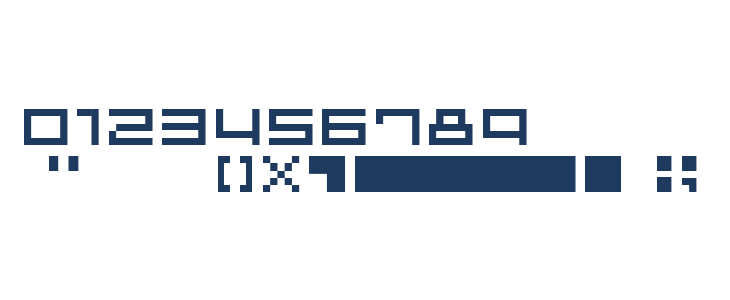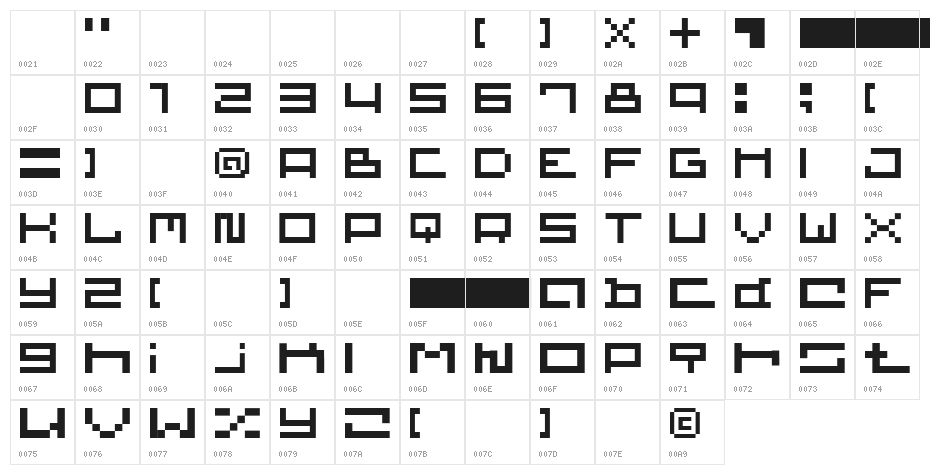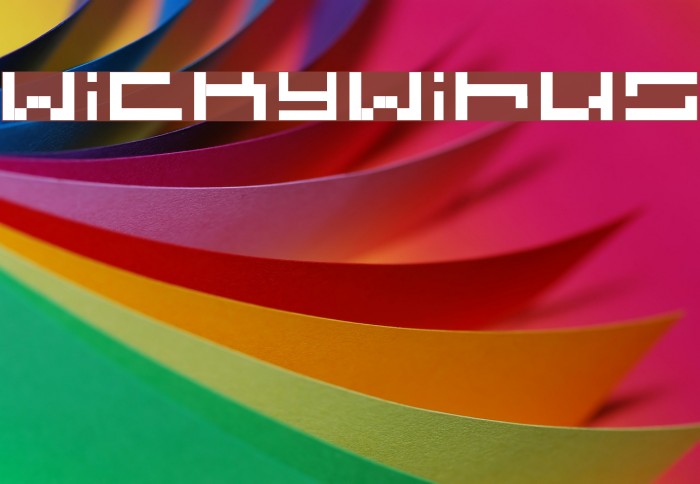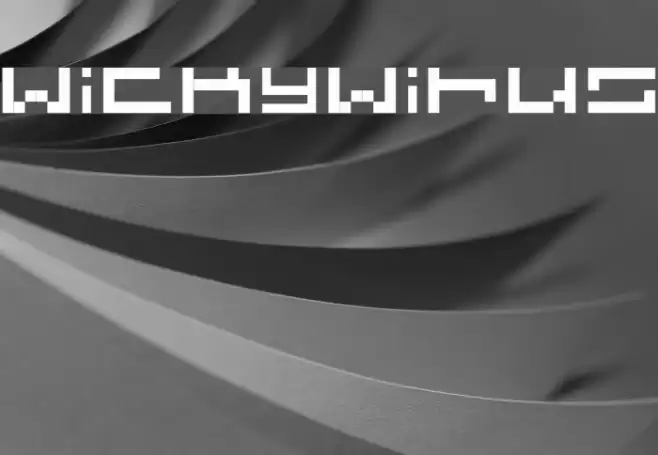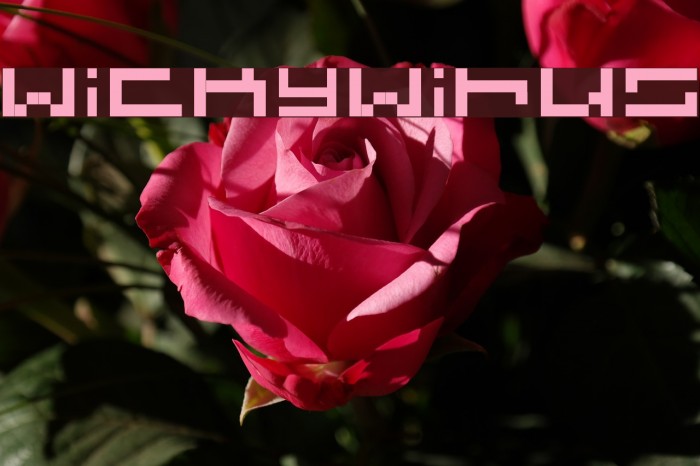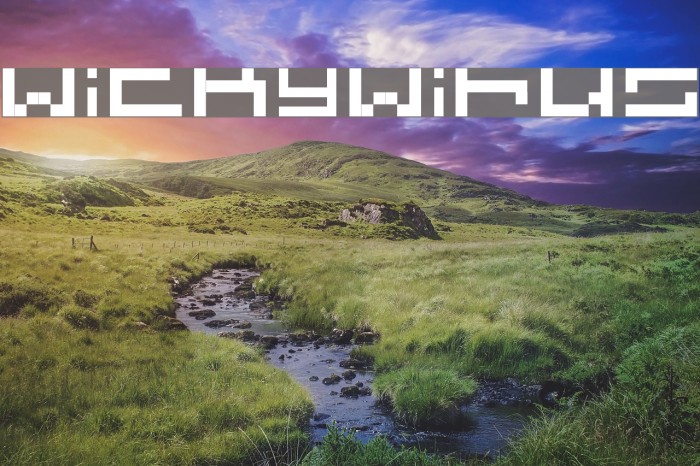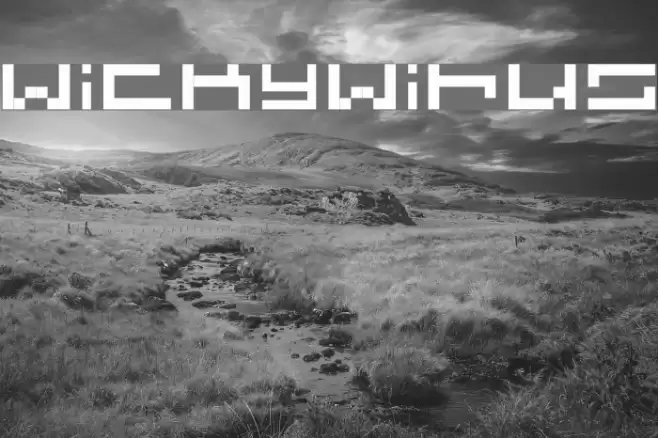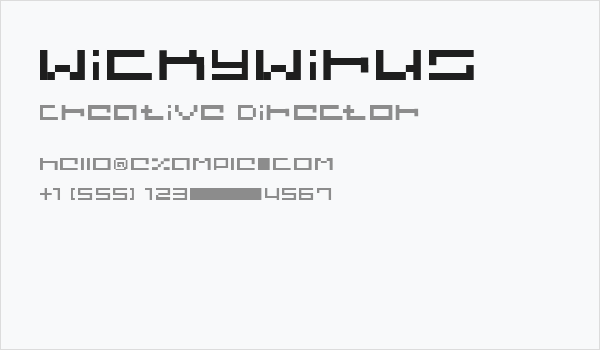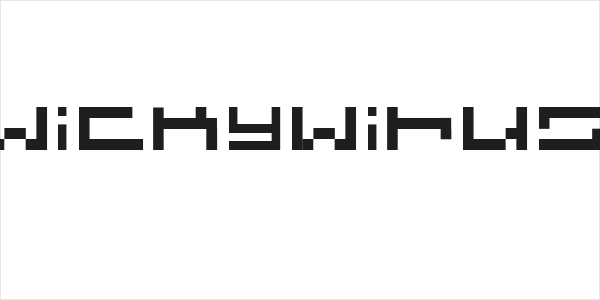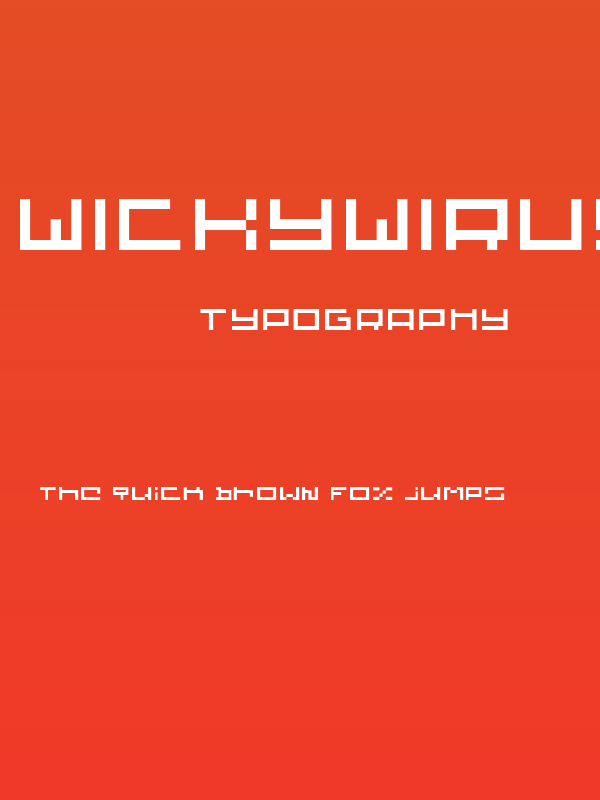
wickywirus Font
wickywirus Description
This font features a bold, geometric design with a pixelated, digital aesthetic. The characters are constructed with uniform square shapes, giving it a blocky and futuristic appearance. The uppercase and lowercase letters maintain a consistent height, contributing to a monospaced feel. Numbers and special characters follow the same design principles, ensuring a cohesive look across all glyphs. The font's style is reminiscent of early computer graphics and video game typography, making it ideal for projects that require a retro or tech-inspired theme.
| Overall Style | Futuristic, Retro |
| Use Case | Logos, Headlines, Digital Art |
| Proposed Projects | Ideal for video game design, tech-themed posters, digital art, and retro-style branding. |